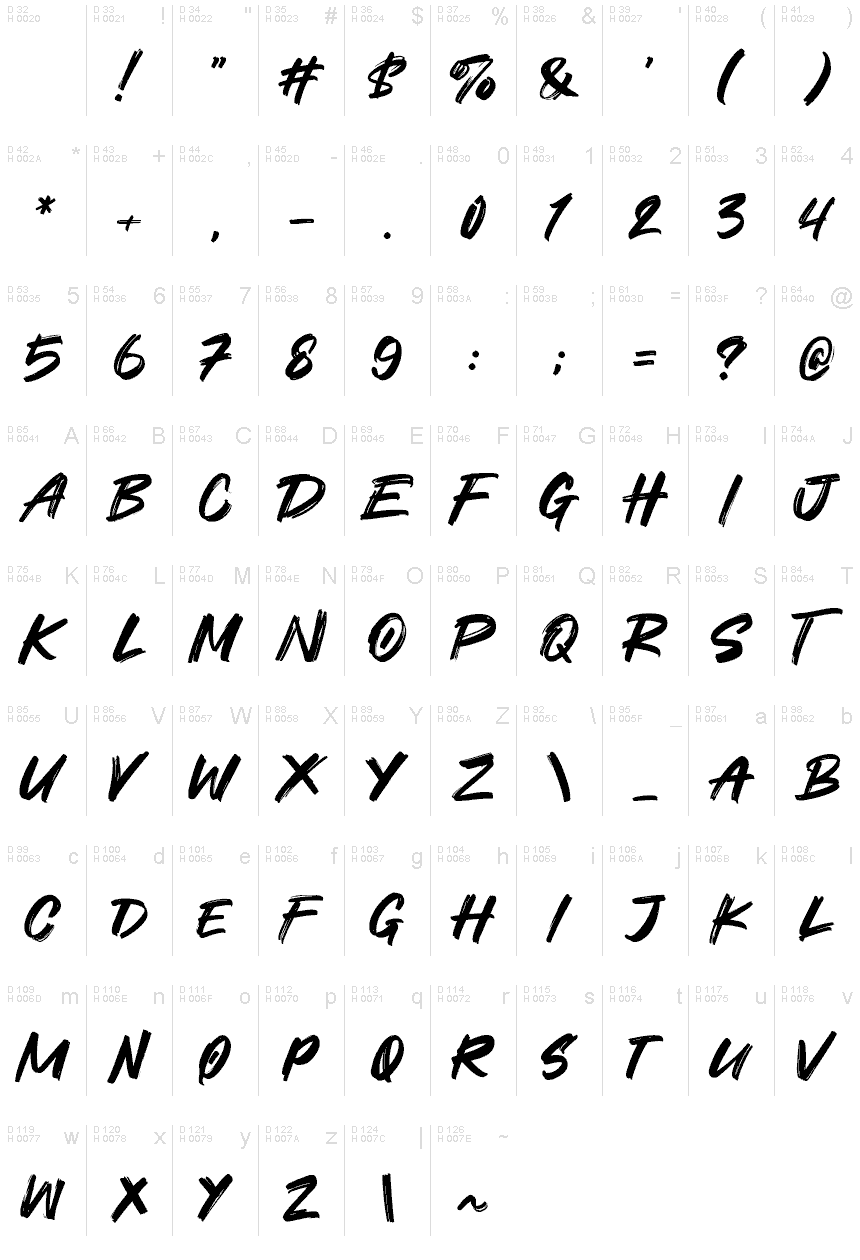
Oldex
Oldex font by Khurasan is a bold brush font with a hand-drawn appearance that commands attention. Its expressive, impactful, and energetic style blends a modern aesthetic with an authentic handwritten feel, making each letter stand out as a statement piece.
Perfect for logos, branding projects, posters, apparel design, headlines, advertising materials, book covers, product packaging design. Invitations and greeting cards will shine like never before when put in beautiful outfits like this free font.